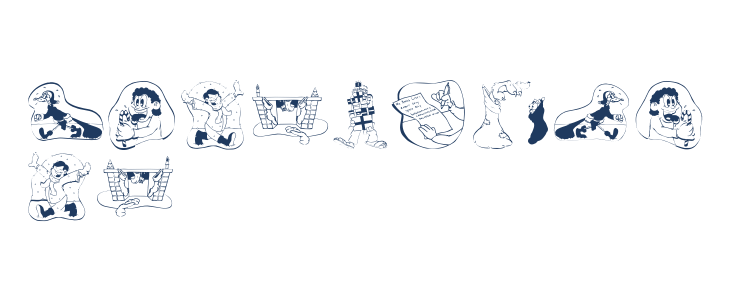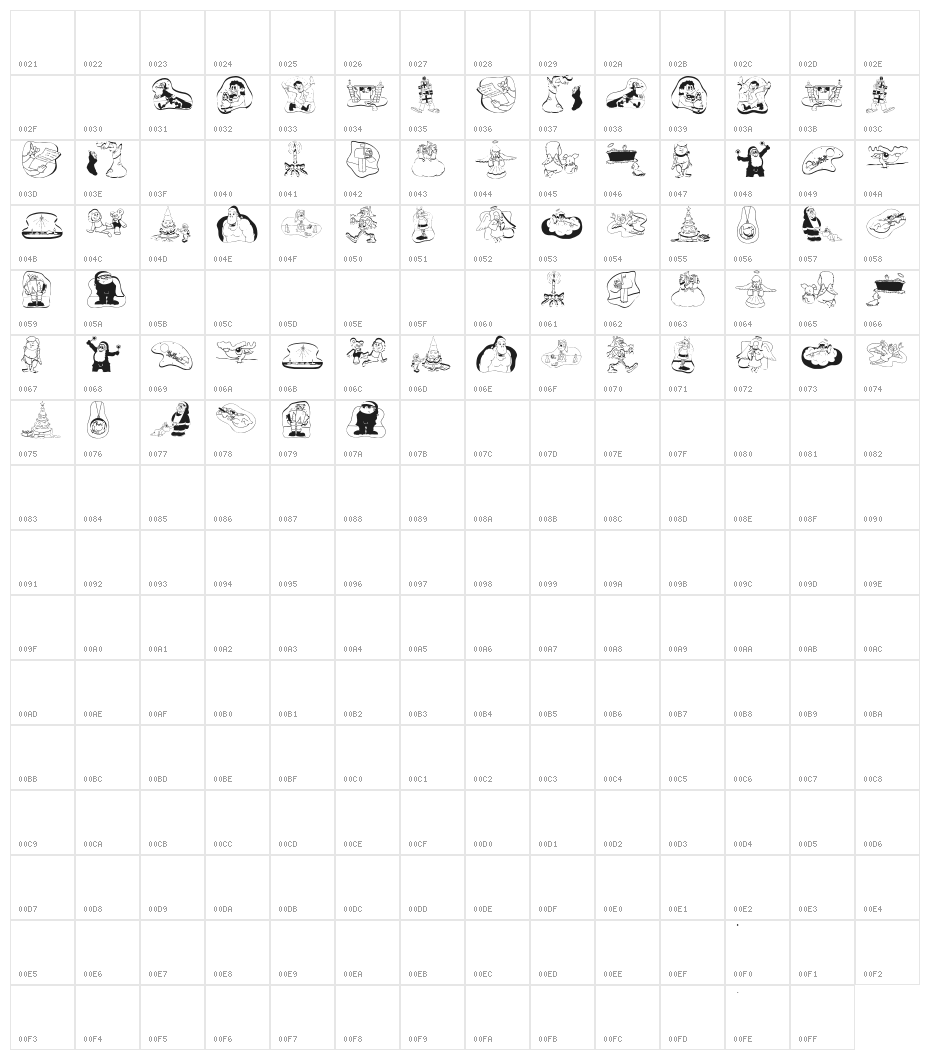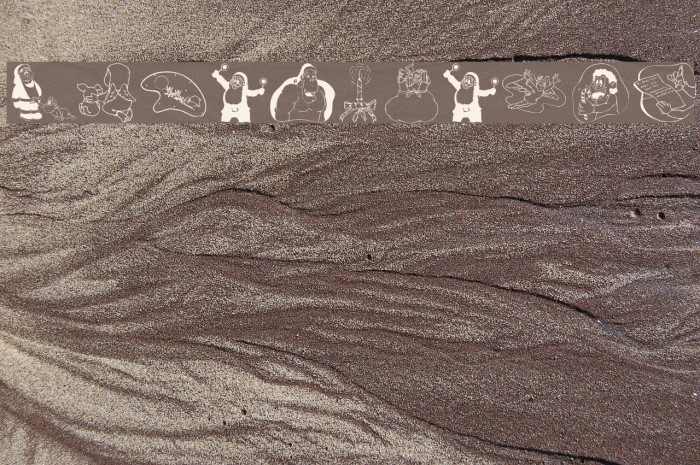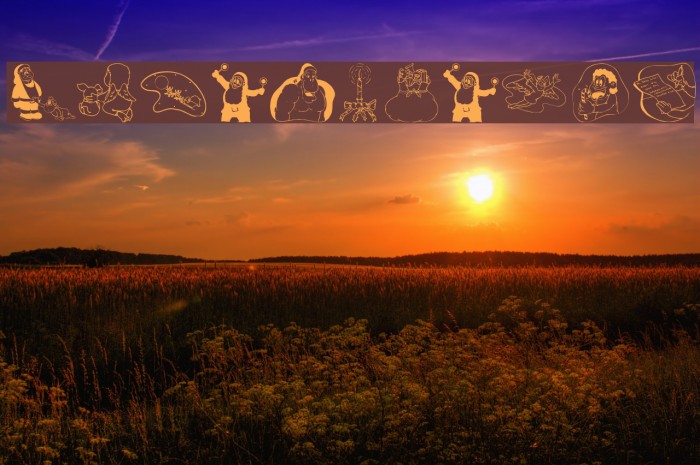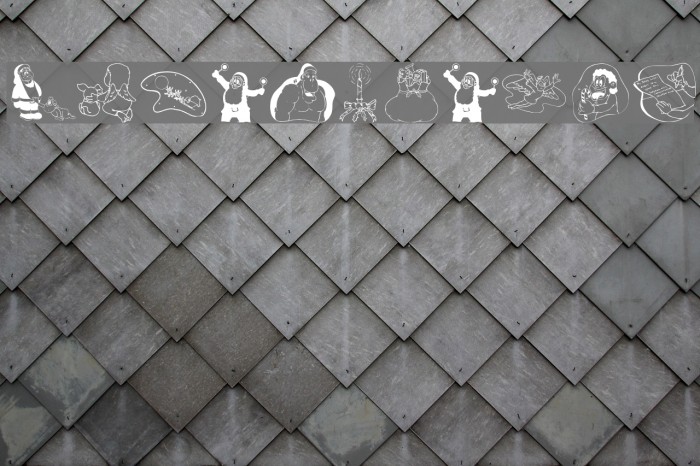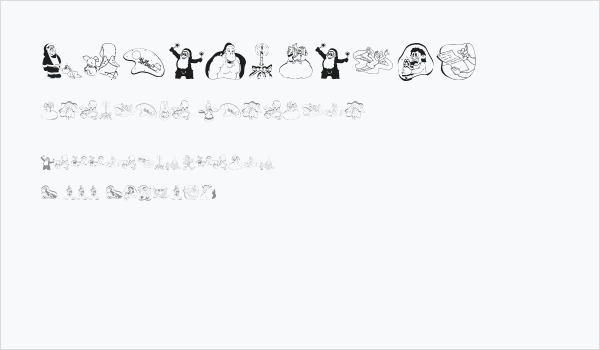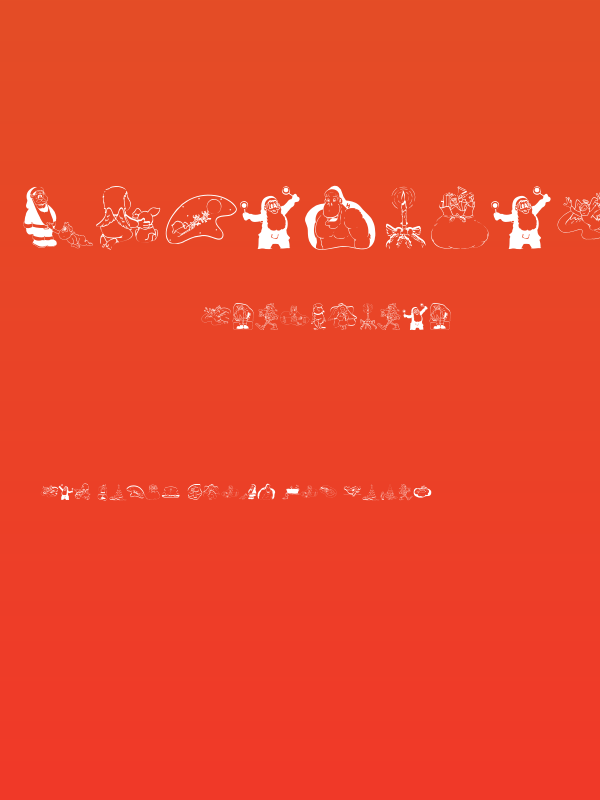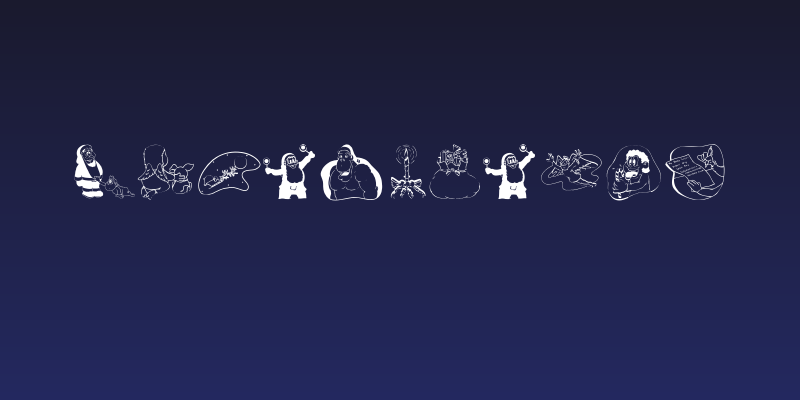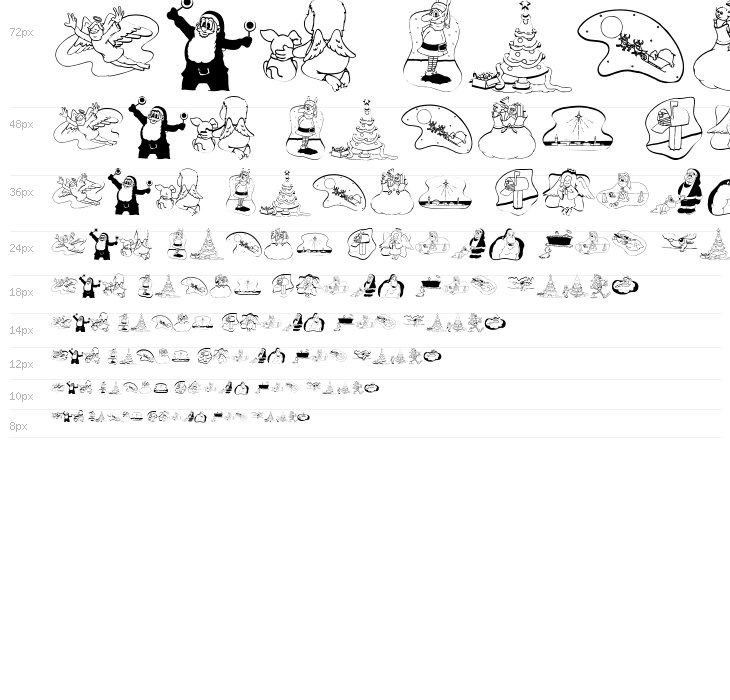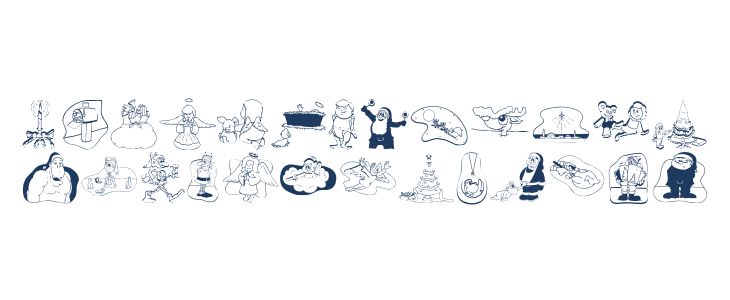
Weihnacht2006 Font
Weihnacht2006 Description
A decorative dingbat font featuring hand-drawn Christmas and winter-themed illustrations, including Santa Claus, angels, Christmas trees, gifts, stockings, and festive characters. Each glyph is a unique, playful cartoon-style image rather than a traditional letterform.
Overall StyleDecorative, Whimsical, Festive
Use CaseDecorative elements, Themed graphics, Holiday projects
Proposed ProjectsHoliday greeting cards, festive invitations, seasonal posters, childrenÒ€ℒs crafts, decorative borders.